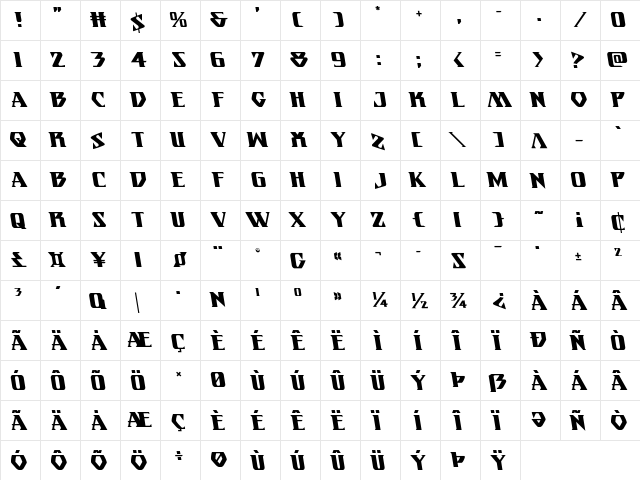
Eternal Knight Leftalic Italic
Design Context for Eternal Knight Leftalic Typeface
Eternal Knight Leftalic offers clean, dependable letterforms without strong stylistic allegiance, making it a practical choice for designers who need flexibility. Its italic angle brings a sense of urgency and motion to the letterforms.
Pro Tip: Use Eternal Knight Leftalic for emphasis, pull quotes, and subheadings where its slanted energy can add rhythm to the layout.